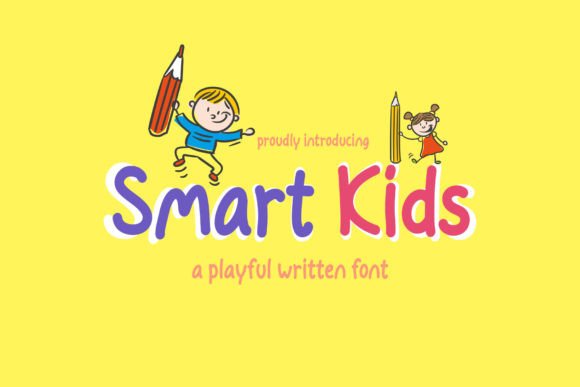
Journey into a realm of imagination and delight with Smart Kids, a playful written font that dances with joy and happiness. Crafted with an enthusiastic spirit and vibrant colors, Smart Kids transforms your designs into an enchanting world of fun and creativity.
Designed to spark a positive and entertaining visual experience for children, Smart Kids is more than just a font; it's an invitation to embark on an adventure of learning and laughter. Inspired by the boundless energy and creativity of kids, we meticulously crafted each character to reflect their unique personalities and preferences.
With Smart Kids, your children's books, learning materials, posters, greeting cards, and other designs will come alive with a captivating charm that captures their attention and sparks their imagination. Every letter dances with glee, encouraging children to explore the wonders of words and stories.
More than just a font, Smart Kids is a powerful tool that supports children's development and learning in a captivating and motivating way. Its cheerful and joyful nature fosters a love for reading and writing, making the educational journey an exciting and rewarding experience.
So, embrace the magic of Smart Kids and transform your designs into a symphony of joy and creativity. Watch as children's eyes light up with delight as they encounter the whimsical world of Smart Kids, where learning and fun go hand in hand.
Welcome to the world of Smart Kids, where imagination knows no bounds and every design tells a captivating story.